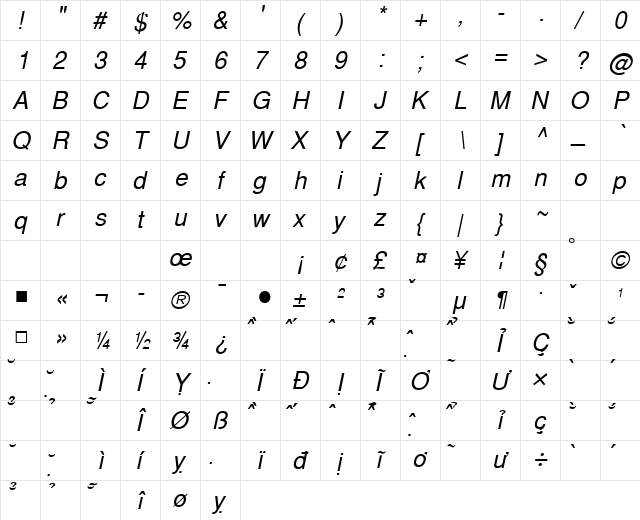
VNI-Helve Italic
Design Context for VNI-Helve Typeface
VNI-Helve takes a measured approach to typography — its balanced proportions and neutral character make it a reliable workhorse for both digital and print work. Its italic angle brings a sense of urgency and motion to the letterforms.
Pro Tip: Use VNI-Helve for emphasis, pull quotes, and subheadings where its slanted energy can add rhythm to the layout.